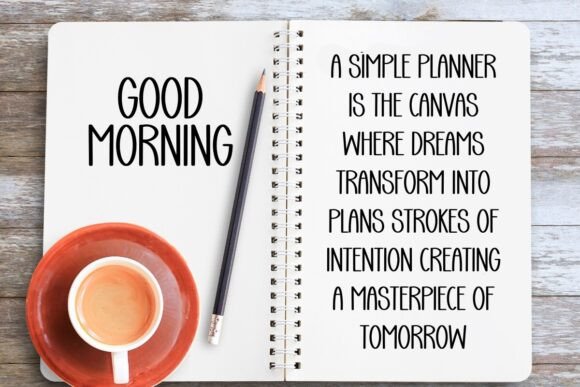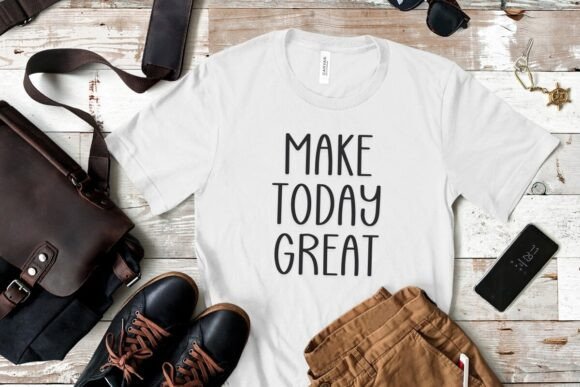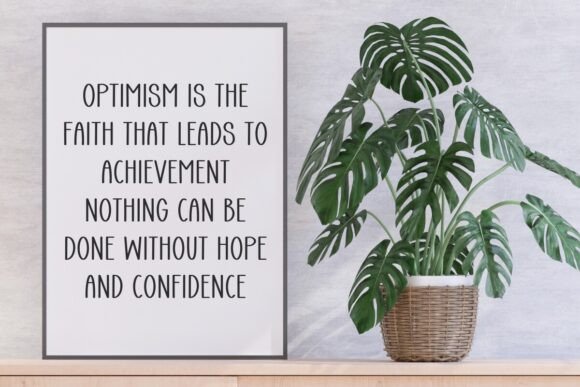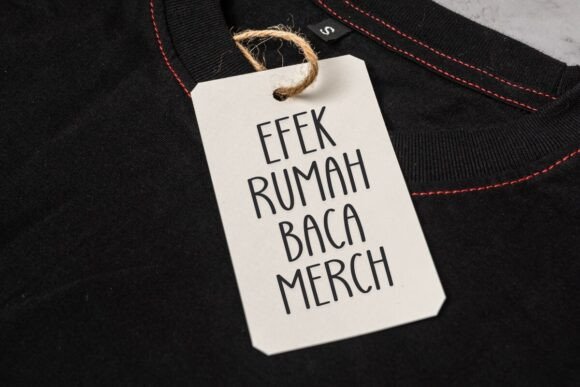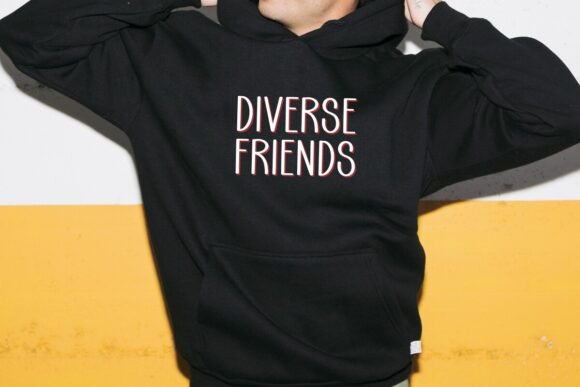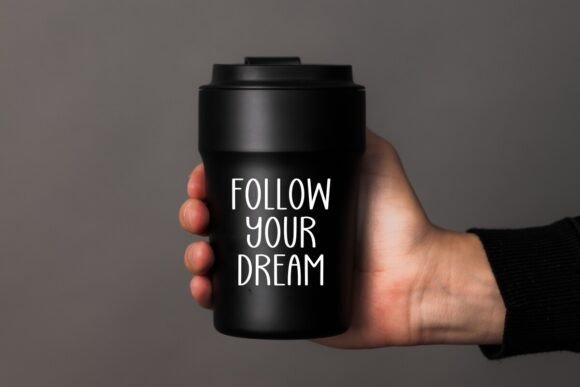
Introduction to Planner Charming Font
Planner Charming is a cute and Beautiful sans-serif font described by an elegant touch, perfect for your favorite projects.
Fall in love with its incredibly distinct and timeless style, and use it to create spectacular designs .